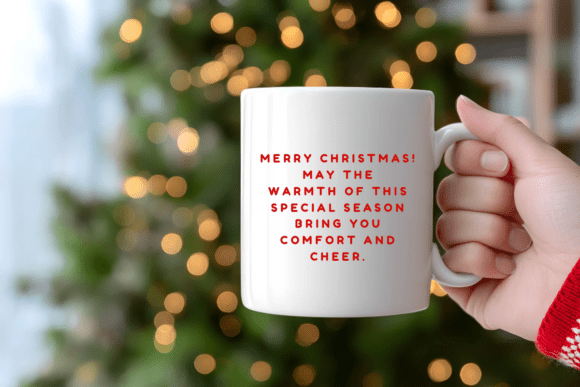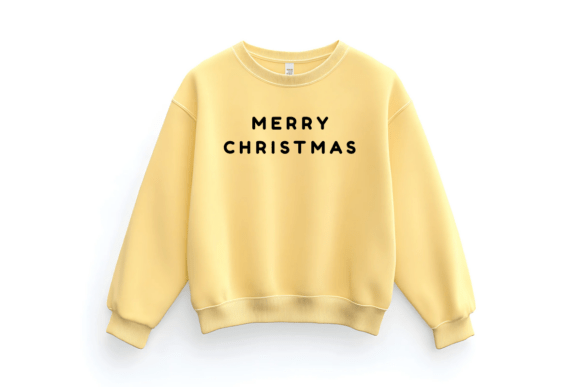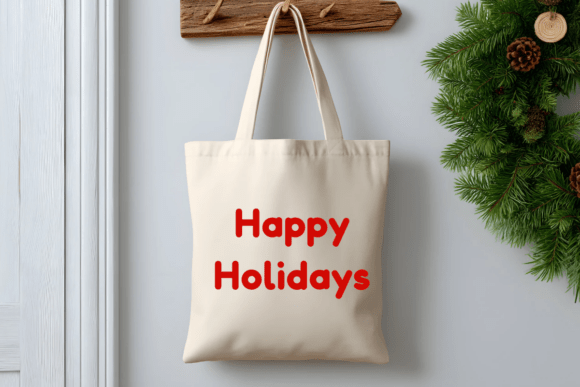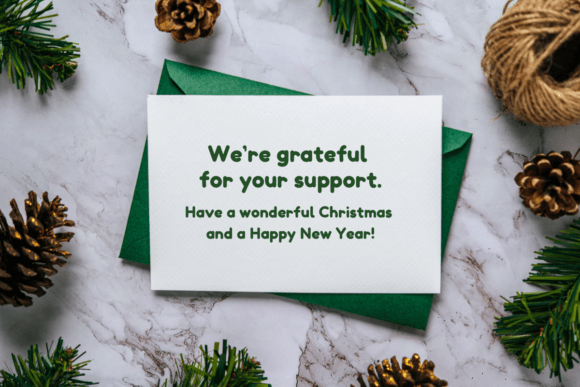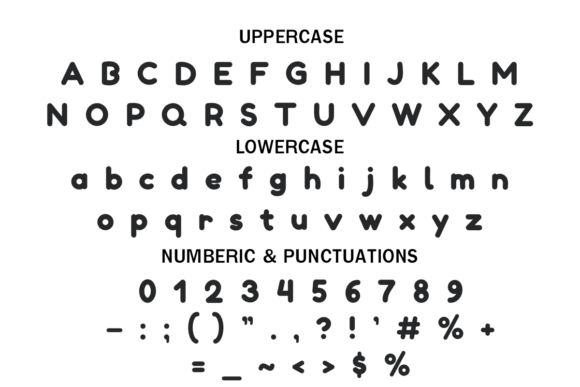
Discover the Funky Merry Font: A Bold and Playful Typeface for Creative Projects
I’ll never forget the time I was working on a children’s educational project, and I just couldn’t find the right font to bring my design to life. My client wanted something bold, fun, and engaging, but not too over-the-top. After hours of scouring font libraries and marketplaces, I stumbled upon the Funky Merry font. Its unique blend of simplicity and energetic personality instantly won me over, and I knew I had found the perfect fit for my project.
A Personal Review of Funky Merry
What I Love About Funky Merry ✨
• ✅ Bold and modern design: Funky Merry’s thick, rounded letterforms with a uniform stroke weight give it a playful, marker-style look that’s perfect for making a statement.
• ✅ Excellent clarity and visibility: The clean lines and robust construction of this font ensure that it remains clear and readable even at smaller sizes.
• ✅ Versatile appeal: Funky Merry’s geometric yet hand-drawn style makes it suitable for a wide range of projects, from casual branding to children’s educational materials.
• ✅ Instantly approachable: This font’s friendly and energetic personality makes it perfect for creating a connection with your audience.
• ⚠️ Limited use in formal contexts: Due to its playful nature, Funky Merry may not be the best fit for formal or professional projects that require a more traditional or conservative look.
• ⚠️ Glyph limitations: While Funky Merry comes with a range of standard glyphs, it may not have extensive support for non-English languages or special characters.
The Design Story Behind Funky Merry
Funky Merry was designed with the goal of creating a bold, modern font that combines simplicity with an energetic and playful personality. Inspired by the world of children’s education and casual branding, the designer aimed to create a typeface that would bring joy and excitement to a wide range of projects.
Q: What type of projects is Funky Merry best suited for?
A: Funky Merry is ideal for casual, fun-focused branding, children’s educational materials, seasonal holiday themes, bold headlines, and vibrant social media advertising.
Q: Does Funky Merry support non-English languages?
A: Funky Merry has limited support for non-English languages. If you need to use the font for a project that requires extensive language support, be sure to check the glyph availability.